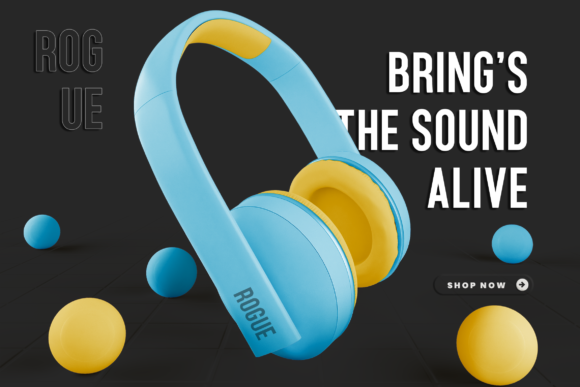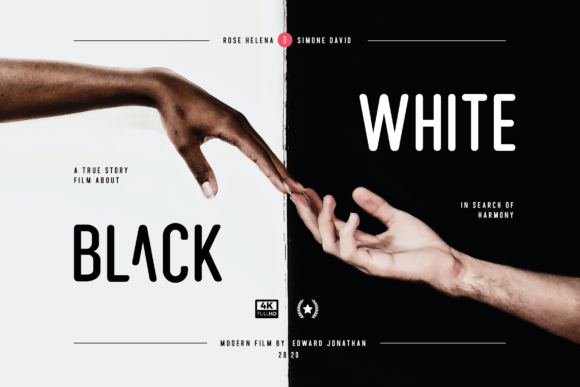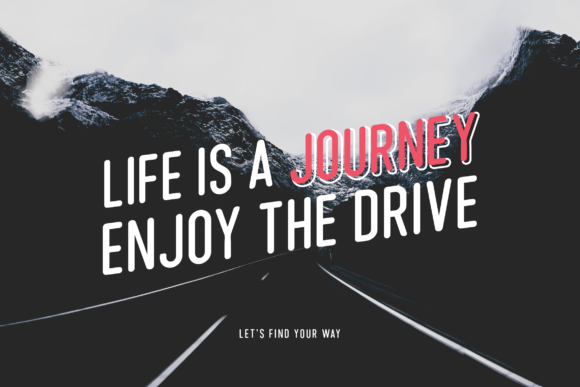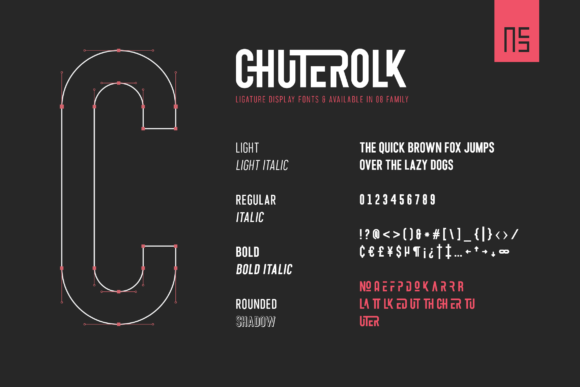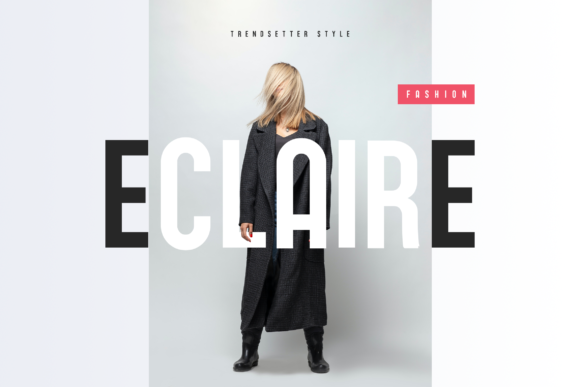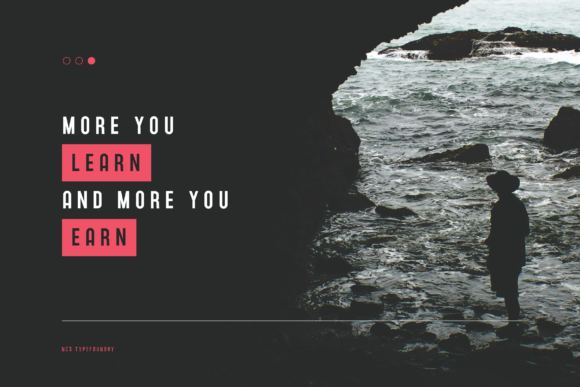
Introducing Chuterolk Font: The Ultimate Display Font for Modern Designs
In the world of typography, fonts play a crucial role in conveying the tone and personality of a design. For designers and crafters looking to add a touch of sophistication and playfulness to their projects, Chuterolk Font is an excellent choice. This modern display font is designed to embody playfulness and authenticity, making it perfect for a wide range of design applications.
What Makes Chuterolk Font Special?
Chuterolk Font is a cute display font that boasts a unique and chunky lettered style. Its modern design makes it an excellent addition to any project, from branding and advertising to packaging and digital media. The font’s playfulness and authenticity are evident in its bold and eye-catching appearance, which is sure to make your designs stand out from the crowd.
Key Features of Chuterolk Font
• Playful and Authentic Design: Chuterolk Font is designed to add a touch of playfulness and authenticity to your designs. Its chunky lettered style gives it a unique and eye-catching appearance.
• Modern and Sophisticated: Despite its playful nature, Chuterolk Font exudes a sense of sophistication and modernity. It’s perfect for designers looking to add a touch of elegance to their projects.
• Versatile and Adaptable: Chuterolk Font can be used in a wide range of design applications, from digital media to print materials. Its versatility makes it an excellent addition to any designer’s toolkit.
• Easy to Read and Recognize: The font’s bold and chunky design makes it easy to read and recognize, even at small sizes.
How to Use Chuterolk Font in Your Designs
Chuterolk Font is an excellent choice for designers and crafters looking to add a touch of sophistication and playfulness to their projects. Here are a few ways you can use Chuterolk Font in your designs:
• Branding and Logo Design: Use Chuterolk Font to create bold and eye-catching logos that showcase your brand’s personality.
• Digital Media: Add Chuterolk Font to your website, social media graphics, or digital ads to give them a modern and sophisticated look.
• Packaging Design: Use Chuterolk Font to create eye-catching packaging designs that stand out on store shelves.
• Print Materials: Add Chuterolk Font to your print materials, such as brochures, flyers, or business cards, to give them a touch of elegance and sophistication.
Tips for Getting the Most Out of Chuterolk Font
To get the most out of Chuterolk Font, here are a few tips to keep in mind:
• Use it Bold and Big: Chuterolk Font is designed to make a statement, so don’t be afraid to use it bold and big.
• Experiment with Colors: Try pairing Chuterolk Font with different colors to create unique and eye-catching combinations.
• Mix and Match with Other Fonts: Chuterolk Font pairs well with other fonts, so don’t be afraid to experiment with different combinations.
In conclusion, Chuterolk Font is an excellent choice for designers and crafters looking to add a touch of sophistication and playfulness to their projects. Its modern design, playful and authentic style, and versatility make it an excellent addition to any designer’s toolkit. Whether you’re working on a branding project, digital media, or print materials, Chuterolk Font is sure to make your designs come alive!